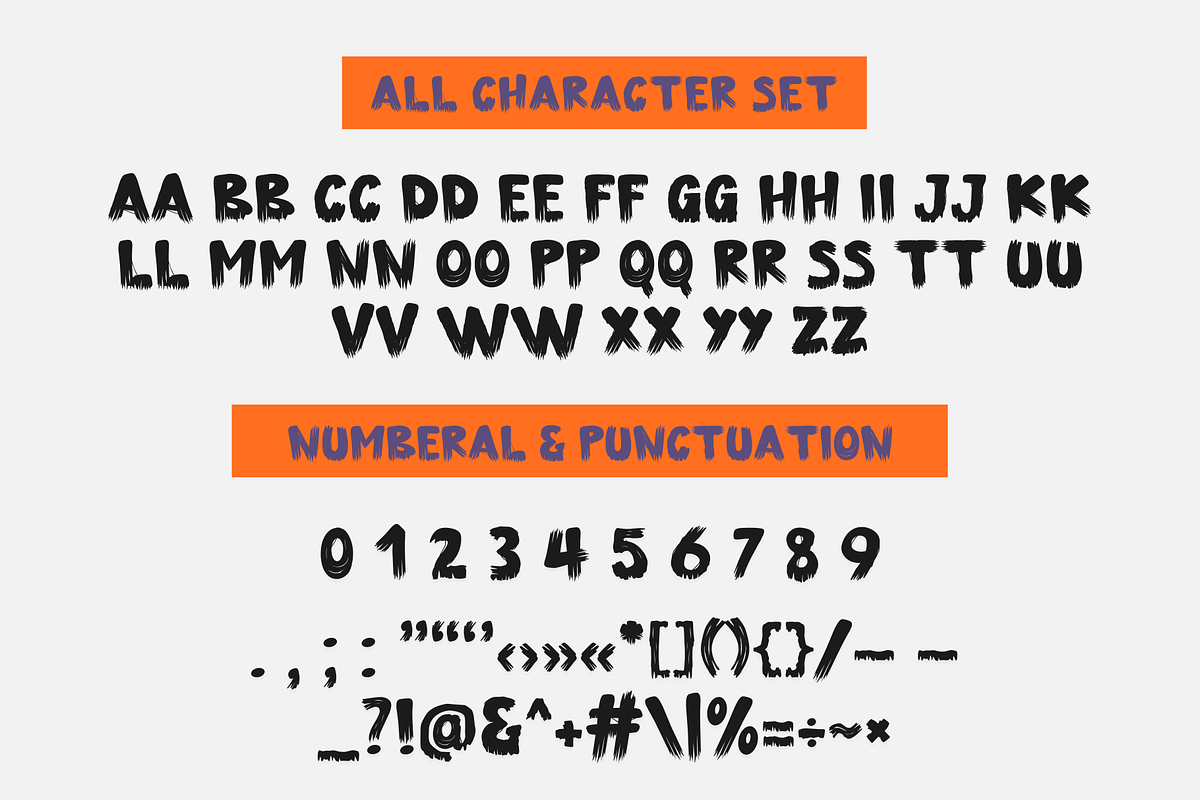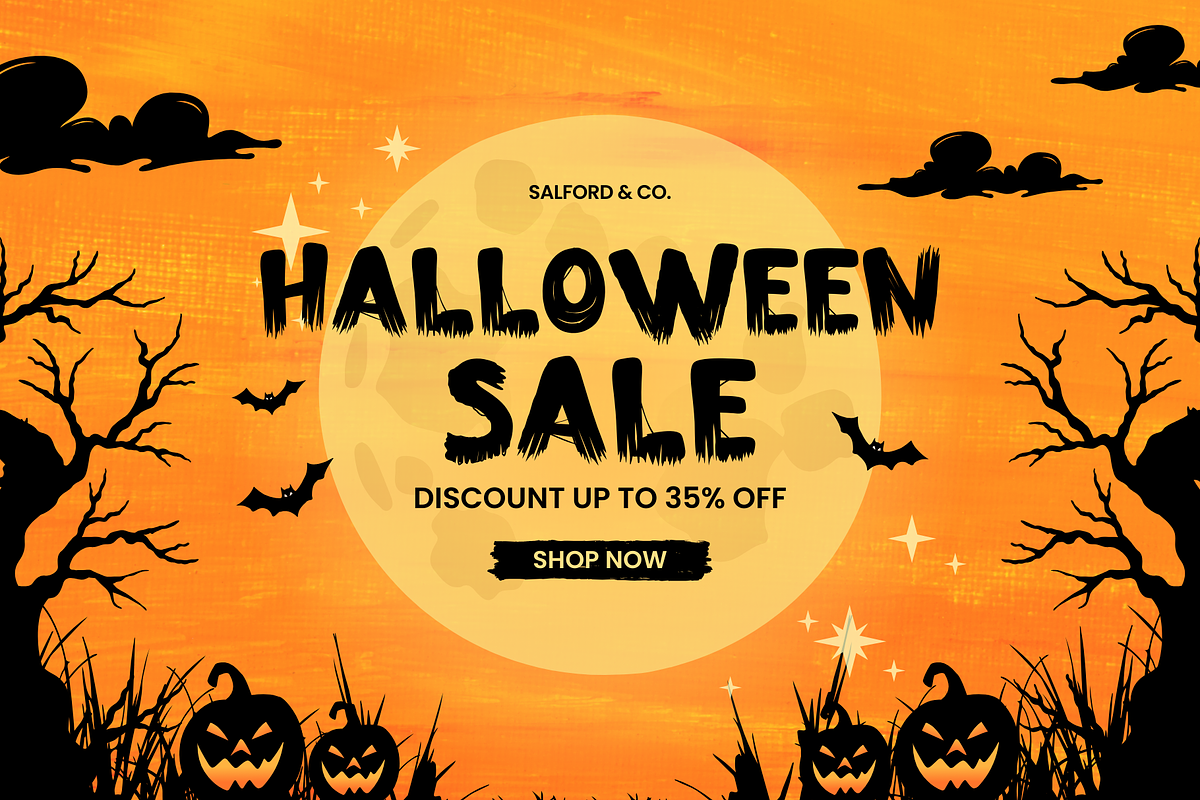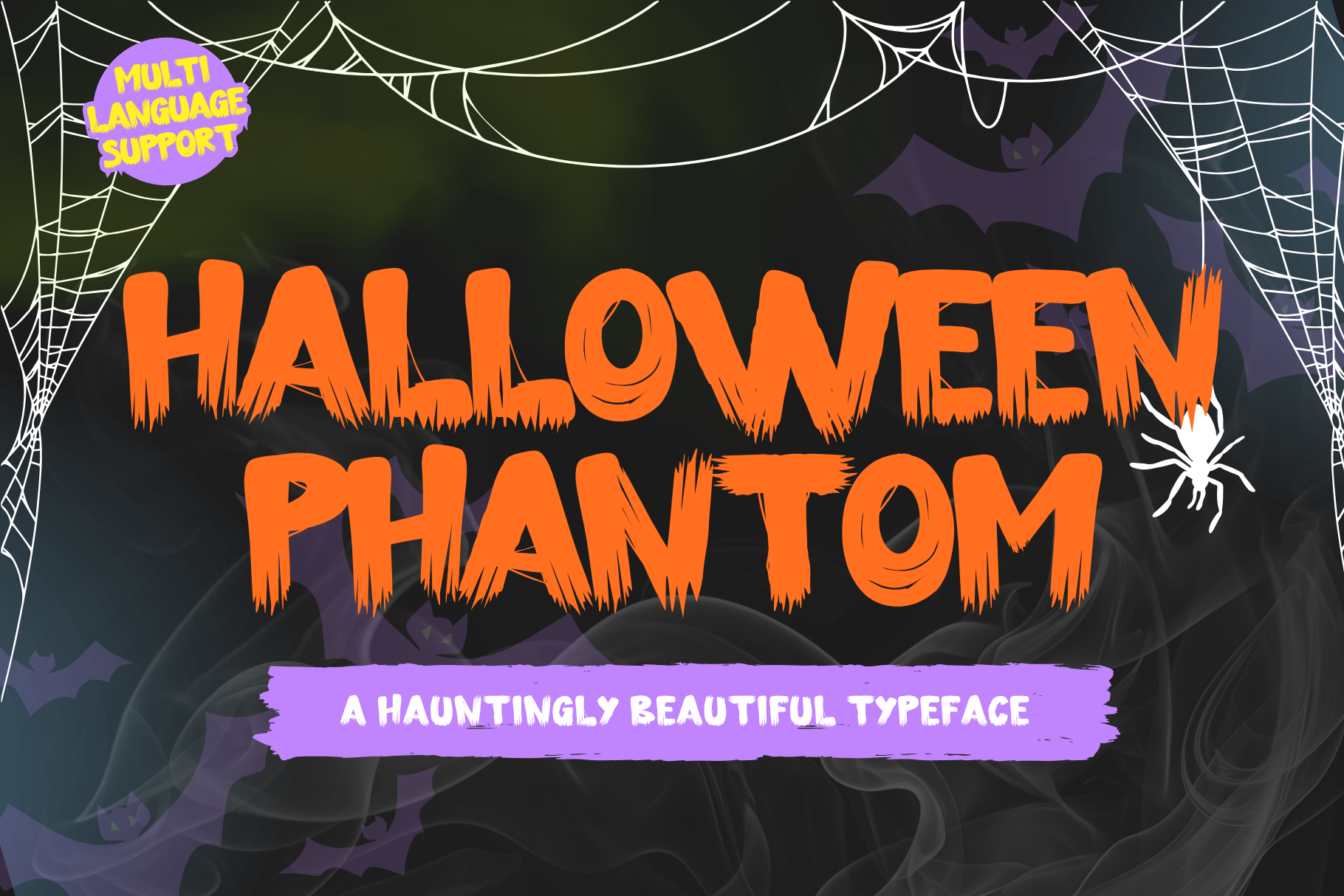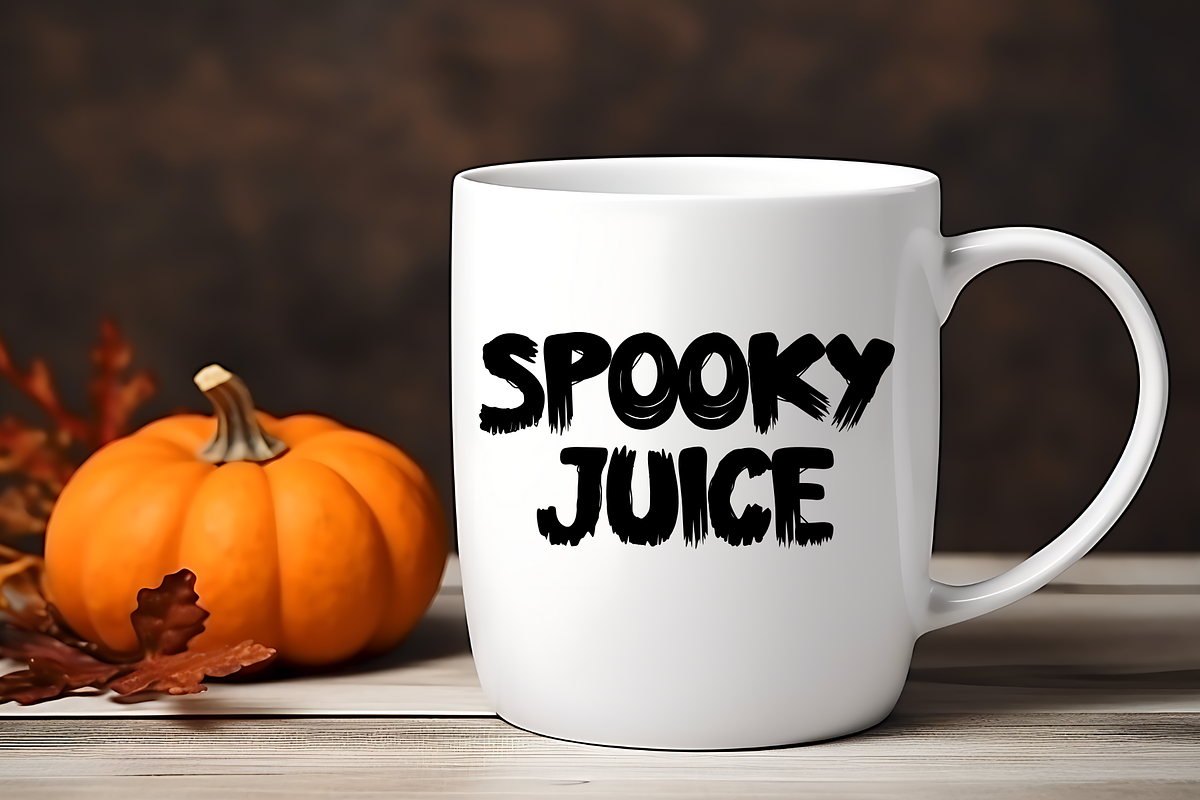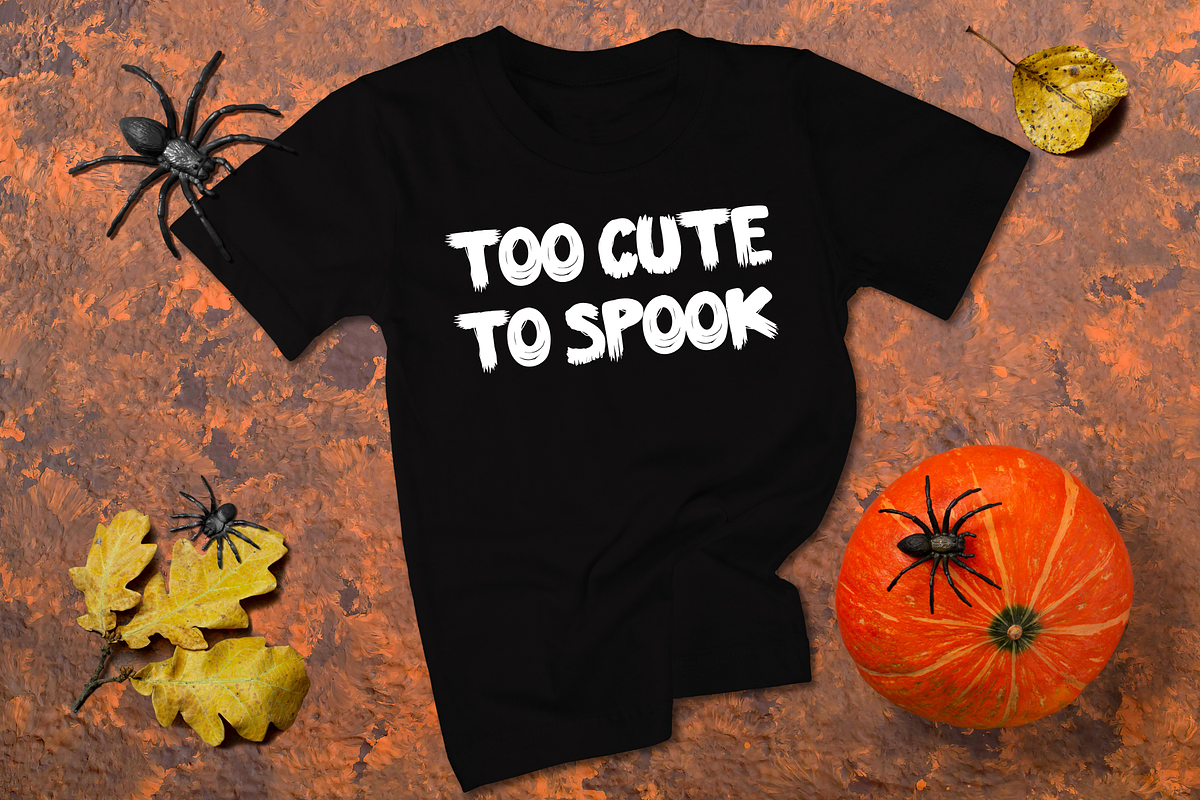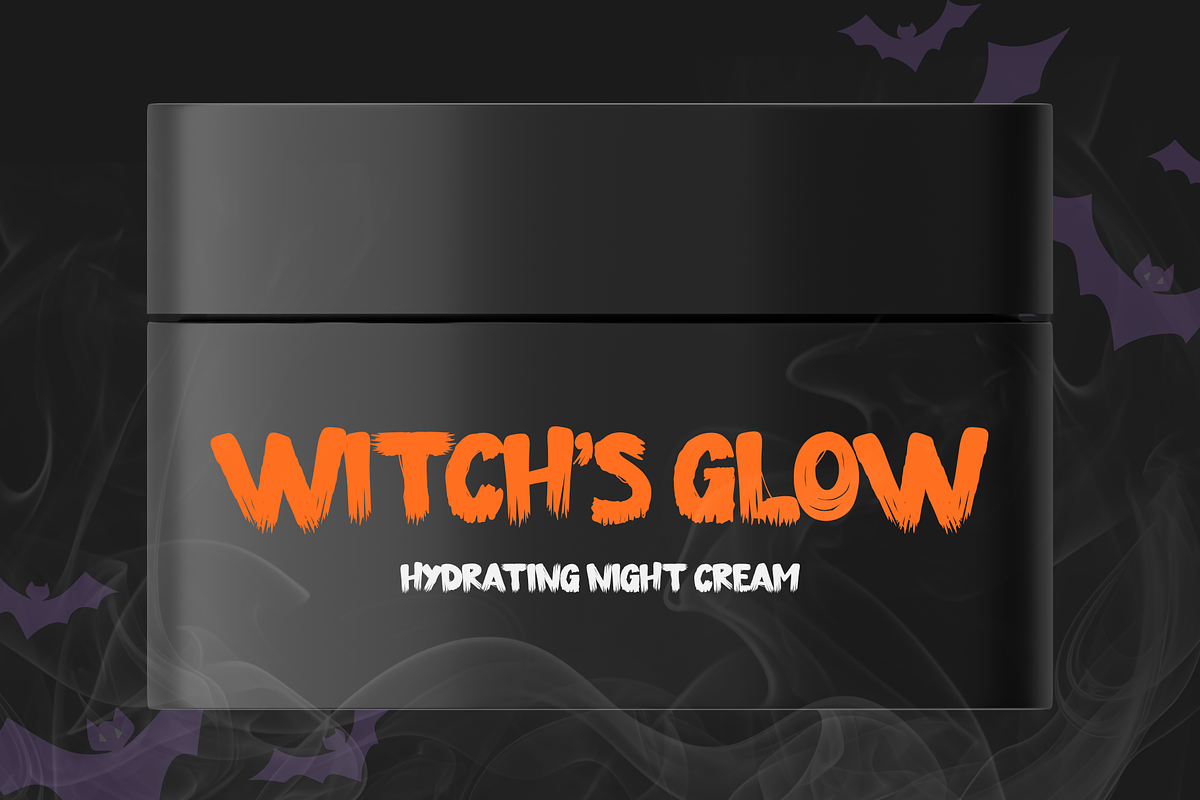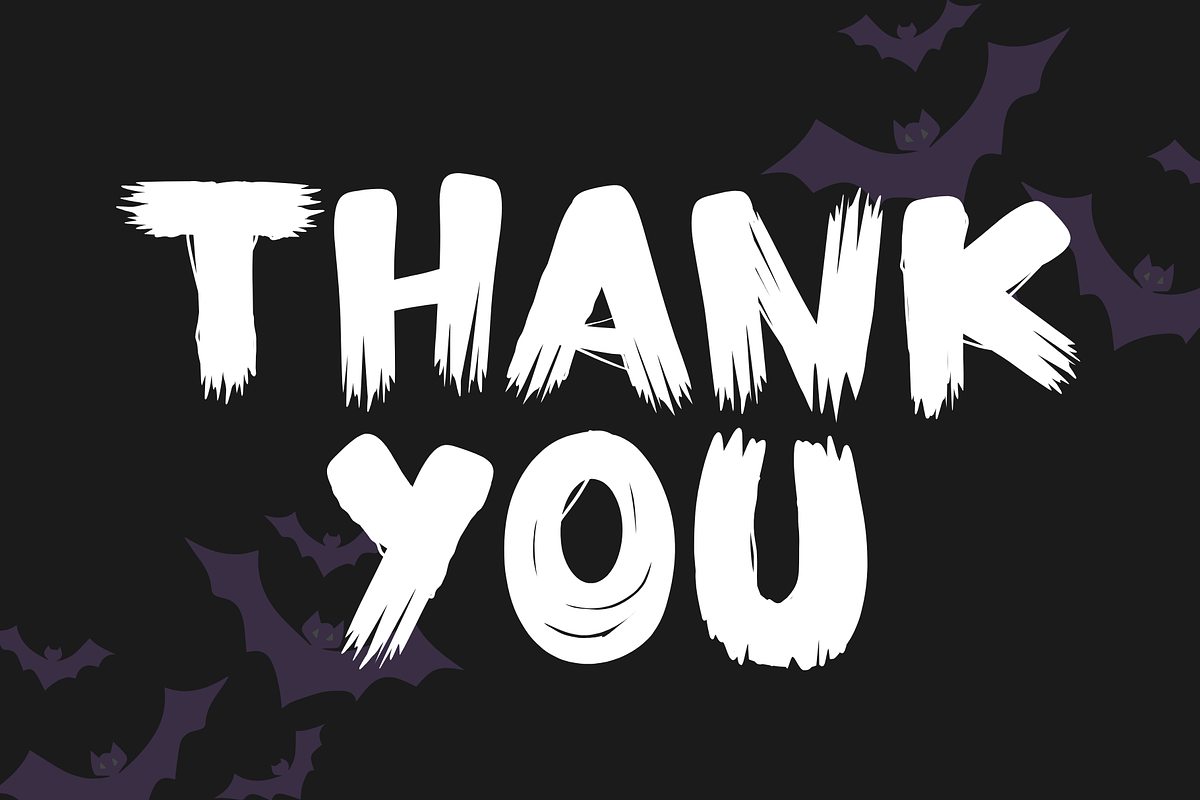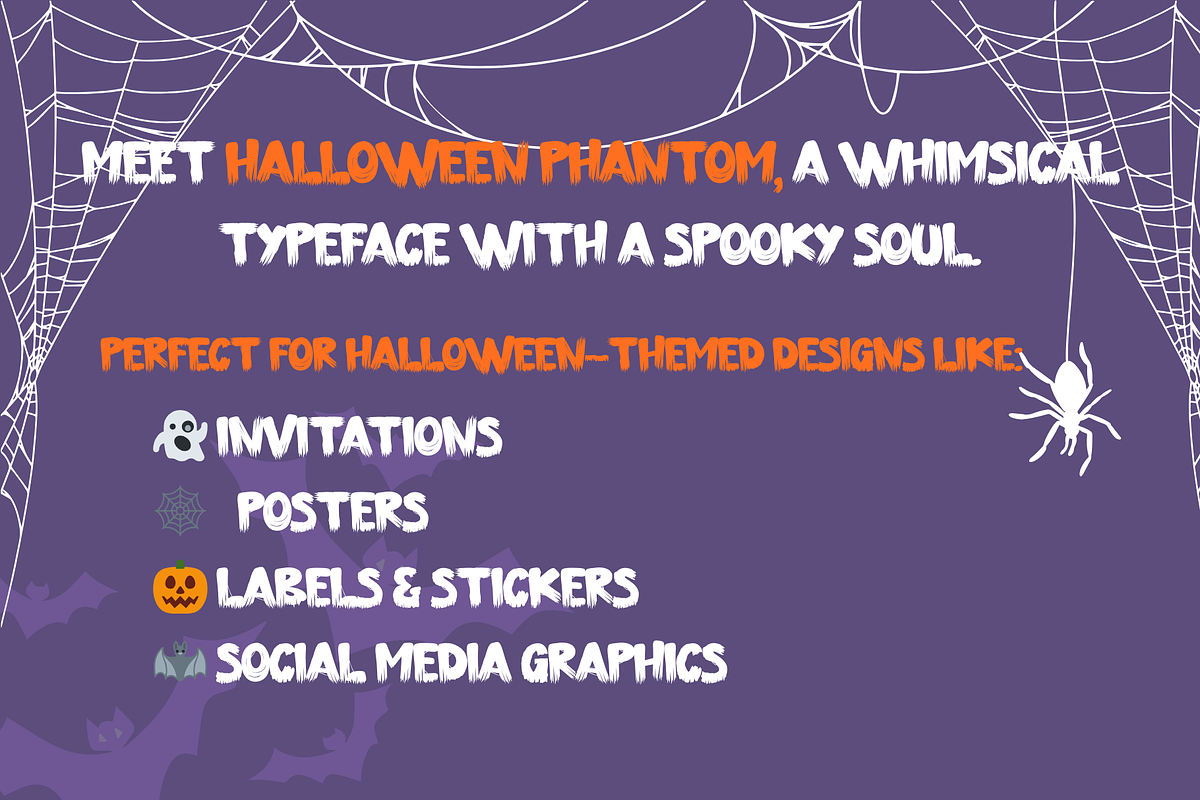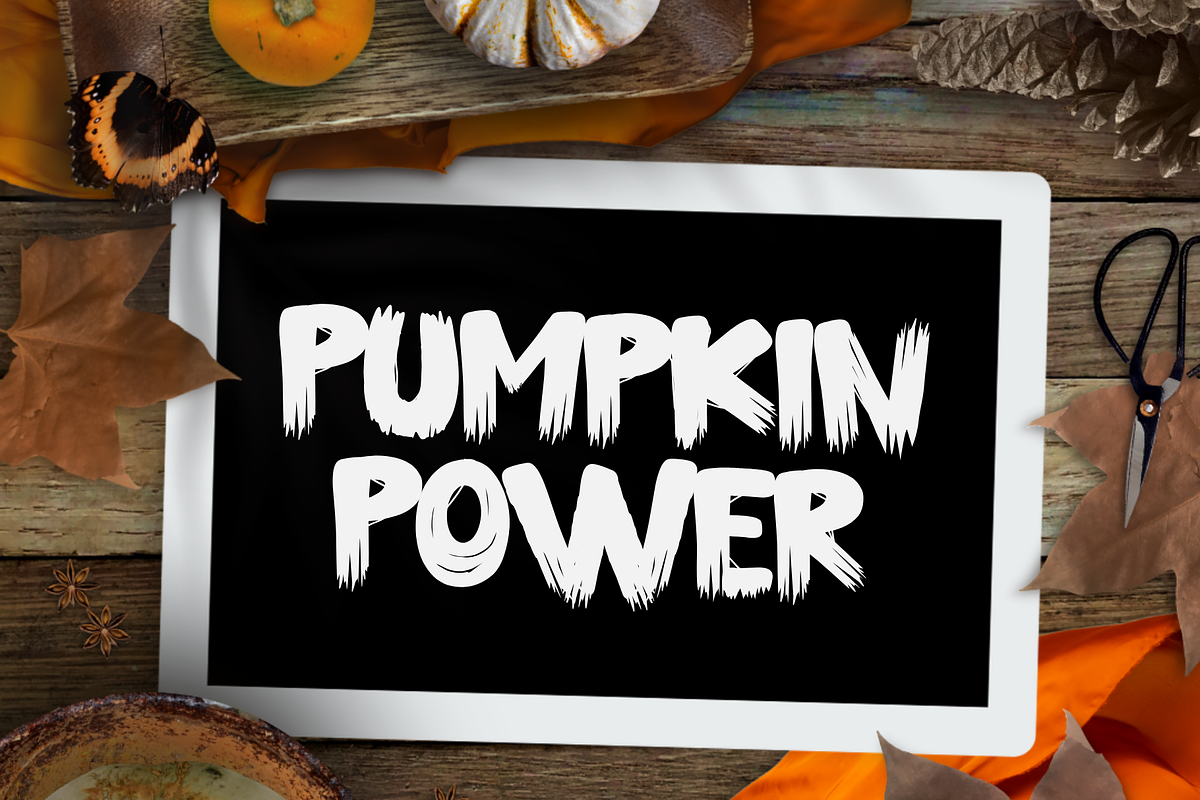
Halloween Phantom - Decorative font
Halloween Phantom is a Halloween decorative font. It embodies playfulness and authenticity and is the perfect choice for all your favorite projects such as blog posts, logos, branding, ads, invitations, greeting cards, planners, photo albums, decorations, and more. Add it to any of your designs, and enjoy the results!